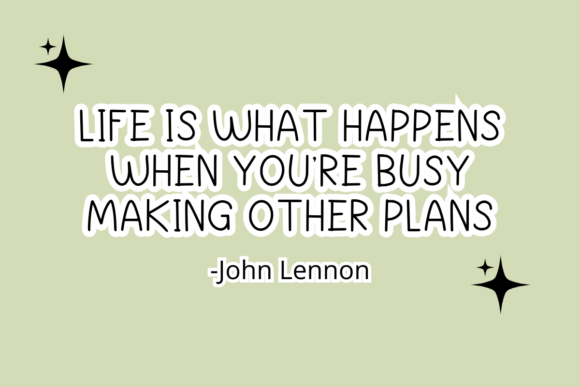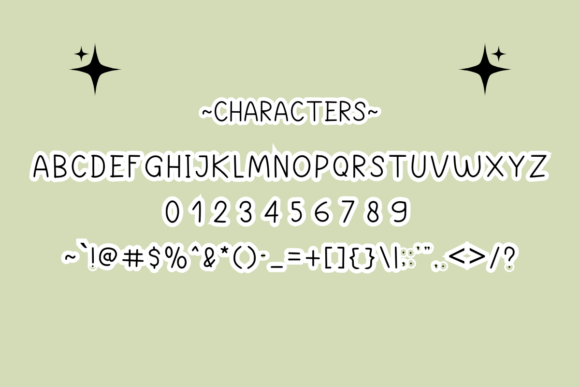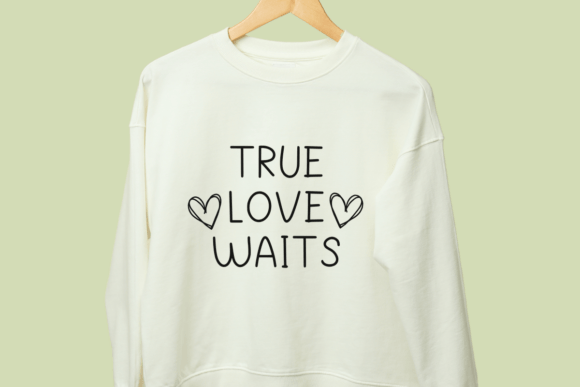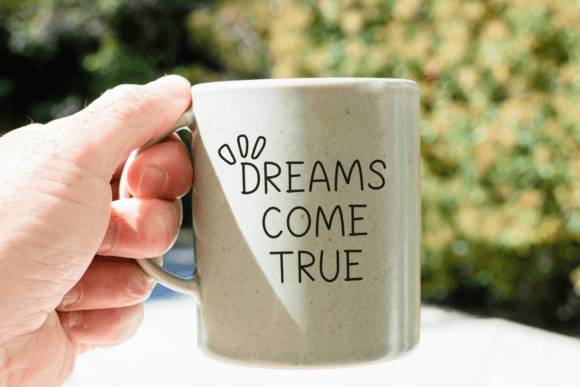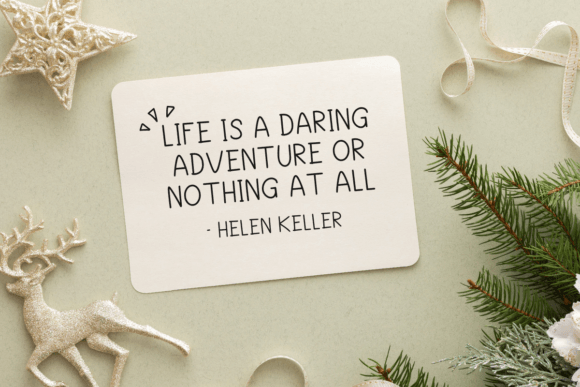
Introduction to Green Theme Font
Green Theme is a playful sans-serif font, perfect for a variety of projects like memos, journals, notes, planners, greeting cards, invitations, scrapbooks, and more.
It’s ideal for teacher materials, KDP interiors, printable stationery, daily planners, to-do lists, workbooks, calendars, and templates, adding a fun and friendly touch to your designs .
Key Features of Green Theme Font
Why Choose Green Theme Font?
Green Theme Font offers exceptional quality and versatility, making it a valuable addition to your design toolkit. Whether you’re creating for personal projects or commercial use, Green Theme Font delivers professional results.